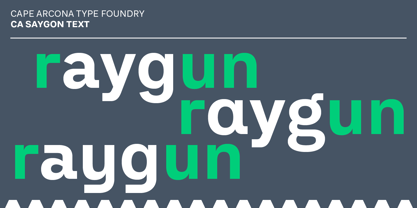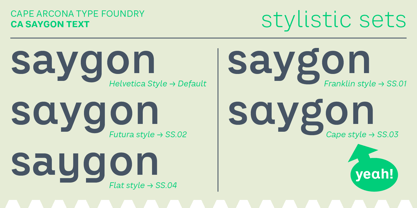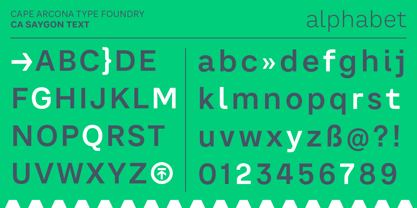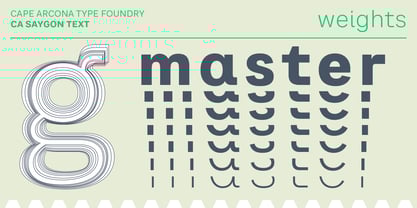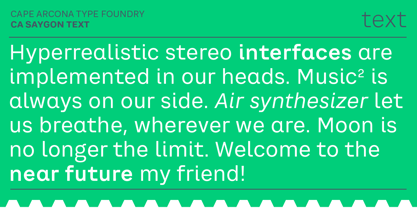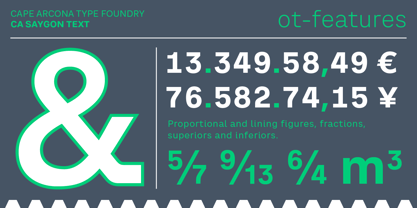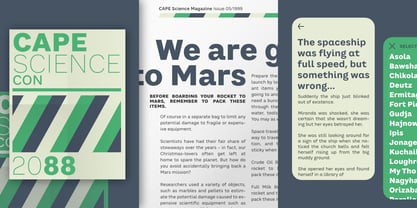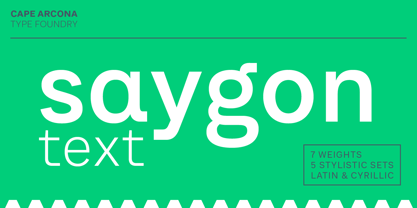
CA Saygon Text Font
CA Saygon Text Font is perfect for editorial publications, literary magazines, scholarly journals, professional documentation, book publishing, academic papers, sophisticated reading materials, cultural publications, intellectual periodicals, and premium text-heavy design applications.
What makes CA Saygon Text Font so exciting is its exceptional reading comfort that combines scholarly elegance with contemporary optimization for extended text consumption, creating typography that enhances comprehension while maintaining intellectual sophistication. This distinguished text typeface embodies literary excellence and academic authority, delivering superior readability that respects both reader comfort and typographic tradition.
The CA Saygon Text Font family includes light, regular, medium, bold, and black weights, complete with italic variations and scholarly design features that provide publishers and designers with comprehensive tools for creating sophisticated and memorable typography optimized for extensive reading experiences and intellectual content.
The expertly optimized letterforms of CA Saygon Text Font showcase scholarly elegance with reading-focused character that creates instant recognition of intellectual quality and editorial excellence. Each character displays careful attention to maintaining the scholarly sophistication that defines premium publishing while ensuring optimal reading flow and visual comfort during extended text consumption. The font's reading-optimized construction and scholarly spacing contribute to its intellectual appearance and superior functionality.
Publishing houses and editorial organizations consistently choose CA Saygon Text Font for projects requiring exceptional readability and intellectual sophistication. The comprehensive character set includes uppercase and lowercase letters, numerals, extensive punctuation, international accents, and scholarly elements that provide complete support for complex publishing applications and intellectual design compositions.
The literary versatility of CA Saygon Text Font ensures exceptional performance across both traditional print and modern digital reading platforms. Whether developing scholarly publications, creating intellectual magazines, or designing premium reading materials, this remarkable typeface delivers consistent reading comfort that enhances comprehension while maintaining the scholarly authority that serious publications demand.